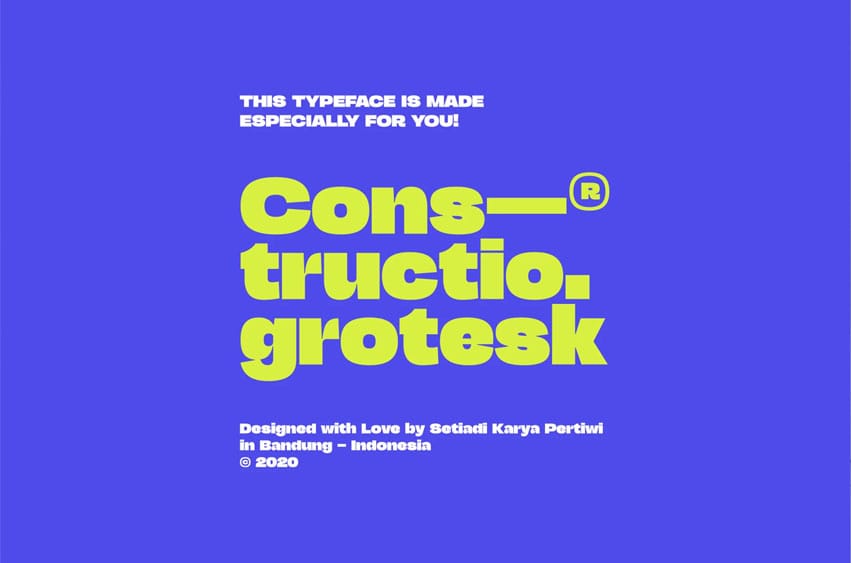
Constructio Grotesk Font is a sans serif font that has an extremely bold body, but still has high contrast. This font is very unique, because it has several glyphs with out-of-box anatomy, such as: G, S, a, e, g, and s. Also, some other glyphs on numerals and punctuation.
This font looks very modern when paired with contrasting design colors. This font is made especially for those of you who want to make book covers, brand logos, and anything modern and contemporary.